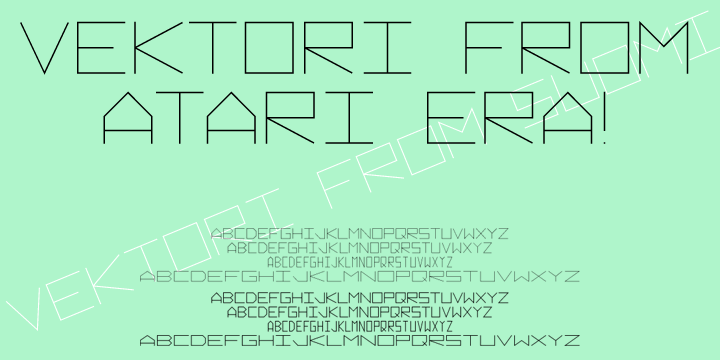
This futuristic typeface excels in tech company branding, digital agency portfolios, software interface design, AI startup logos, engineering firm presentations, scientific publications, mathematical textbooks, and cutting-edge technology communications. Its precise geometry makes it perfect for projects requiring mathematical precision and digital sophistication.
Vektori Font generates excitement through its algorithmic precision that embodies the intersection of mathematics and visual design. The font's vector-perfect curves and calculated letterforms create an atmosphere of technological advancement that resonates with audiences seeking innovation and scientific accuracy. Its systematically engineered character variations deliver computational clarity while maintaining distinctive digital personality that reflects the evolution of design in the digital age.
The Vektori Font family includes multiple algorithm-inspired variations such as regular, light, bold, mono, and outlined styles. Each family member preserves the distinctive vector aesthetic while offering different levels of technical sophistication for various digital applications. This systematic collection empowers designers to create precise compositions that celebrate the mathematical beauty underlying all digital design and technological innovation.